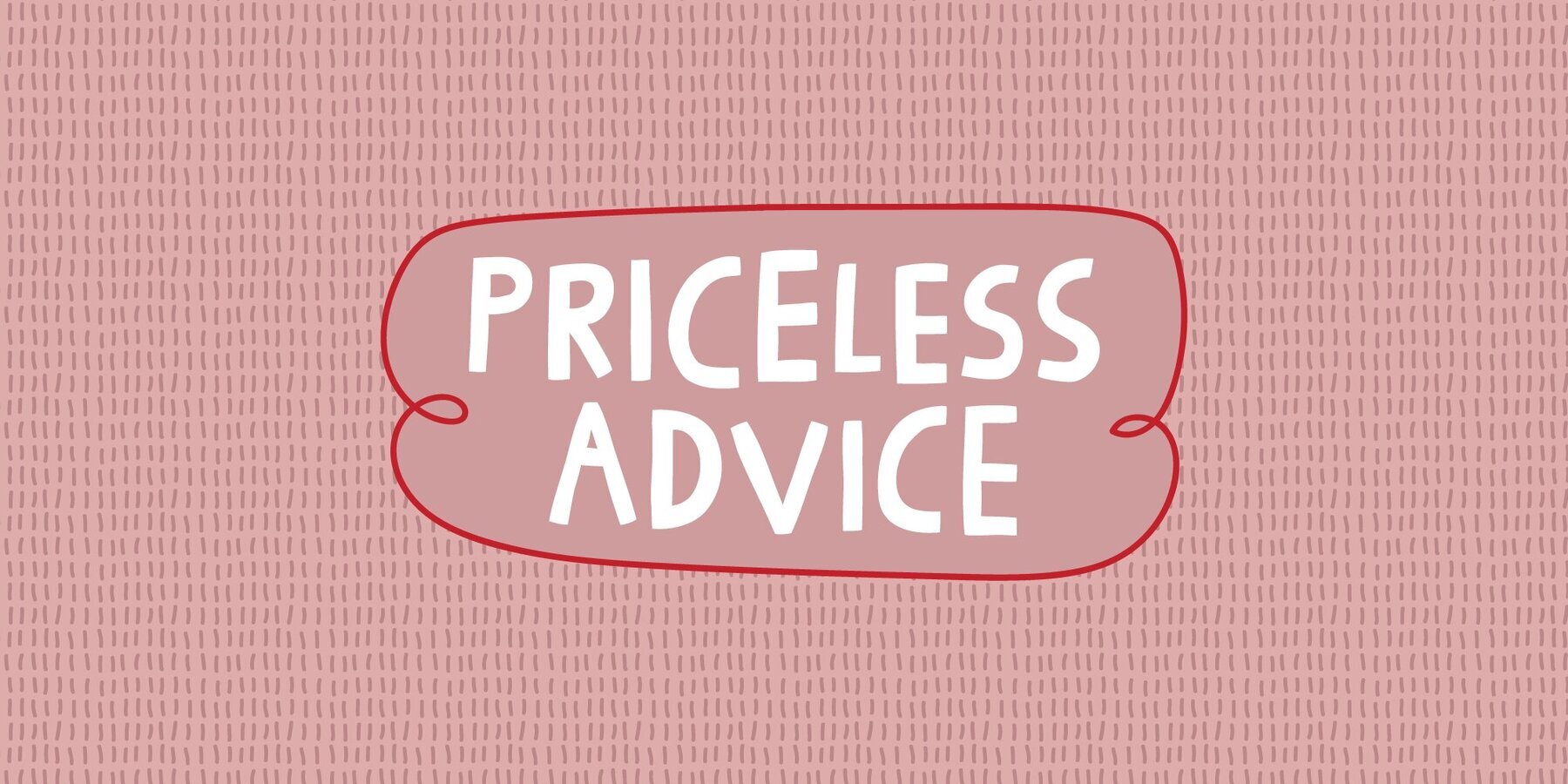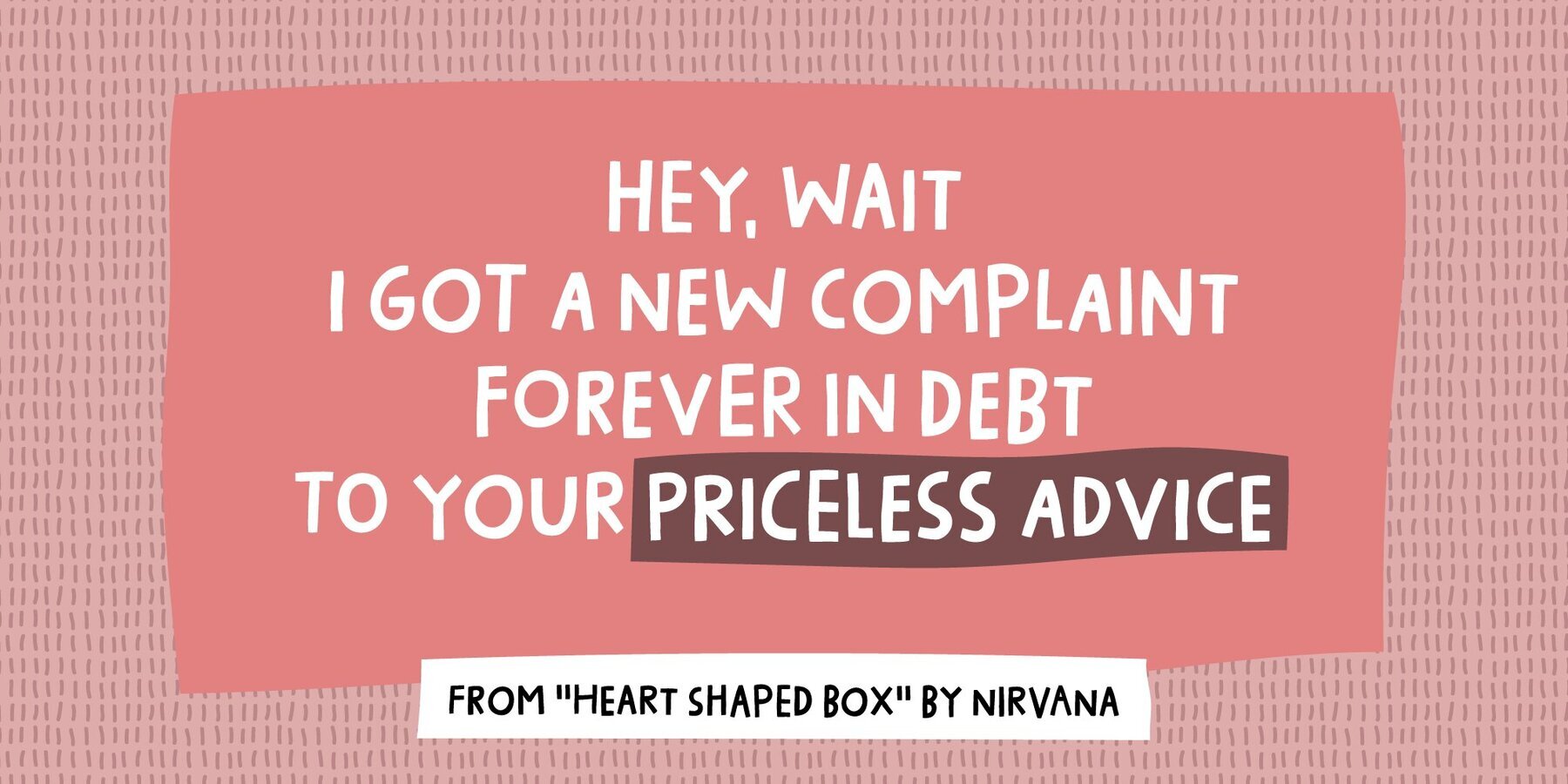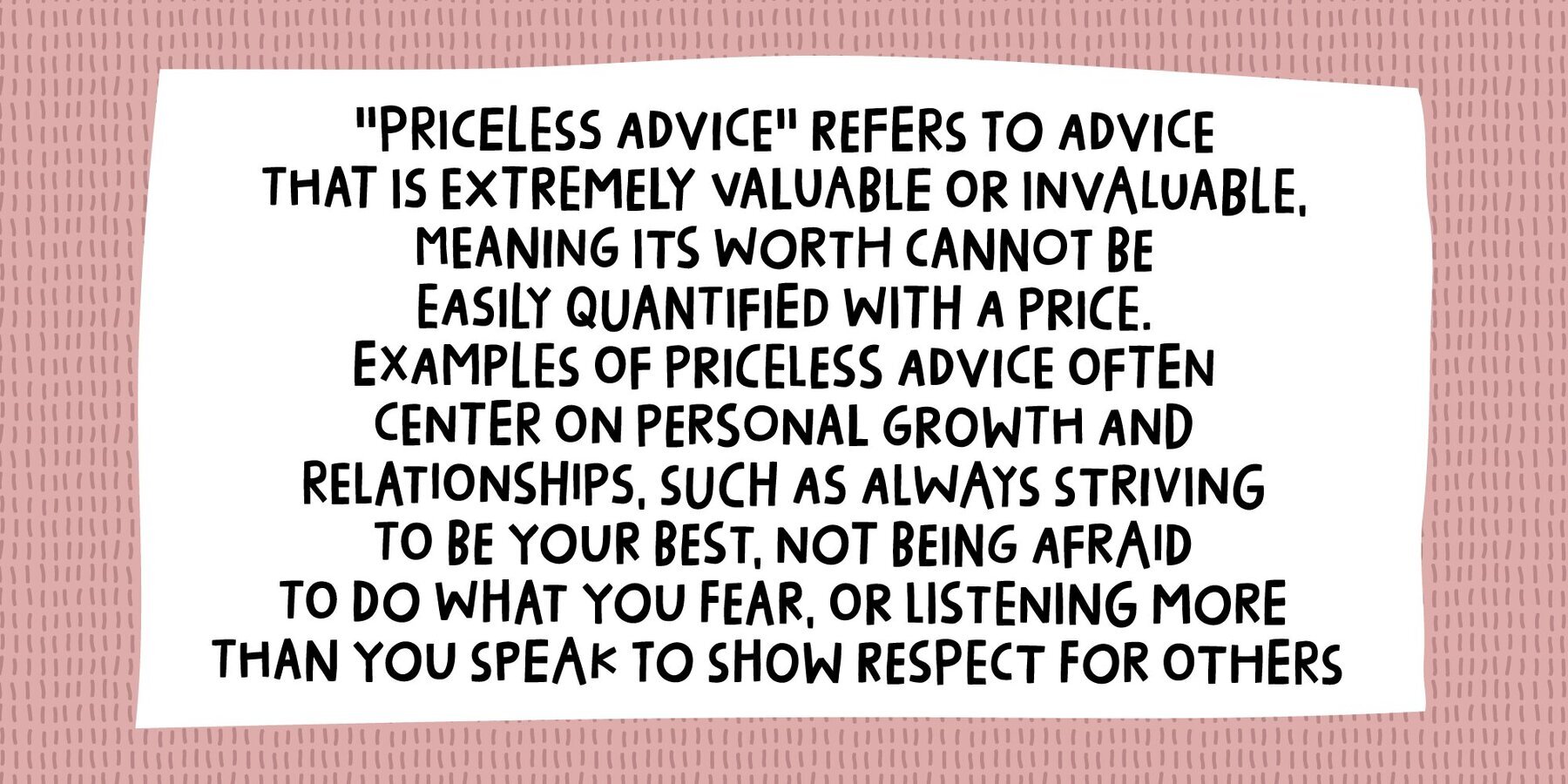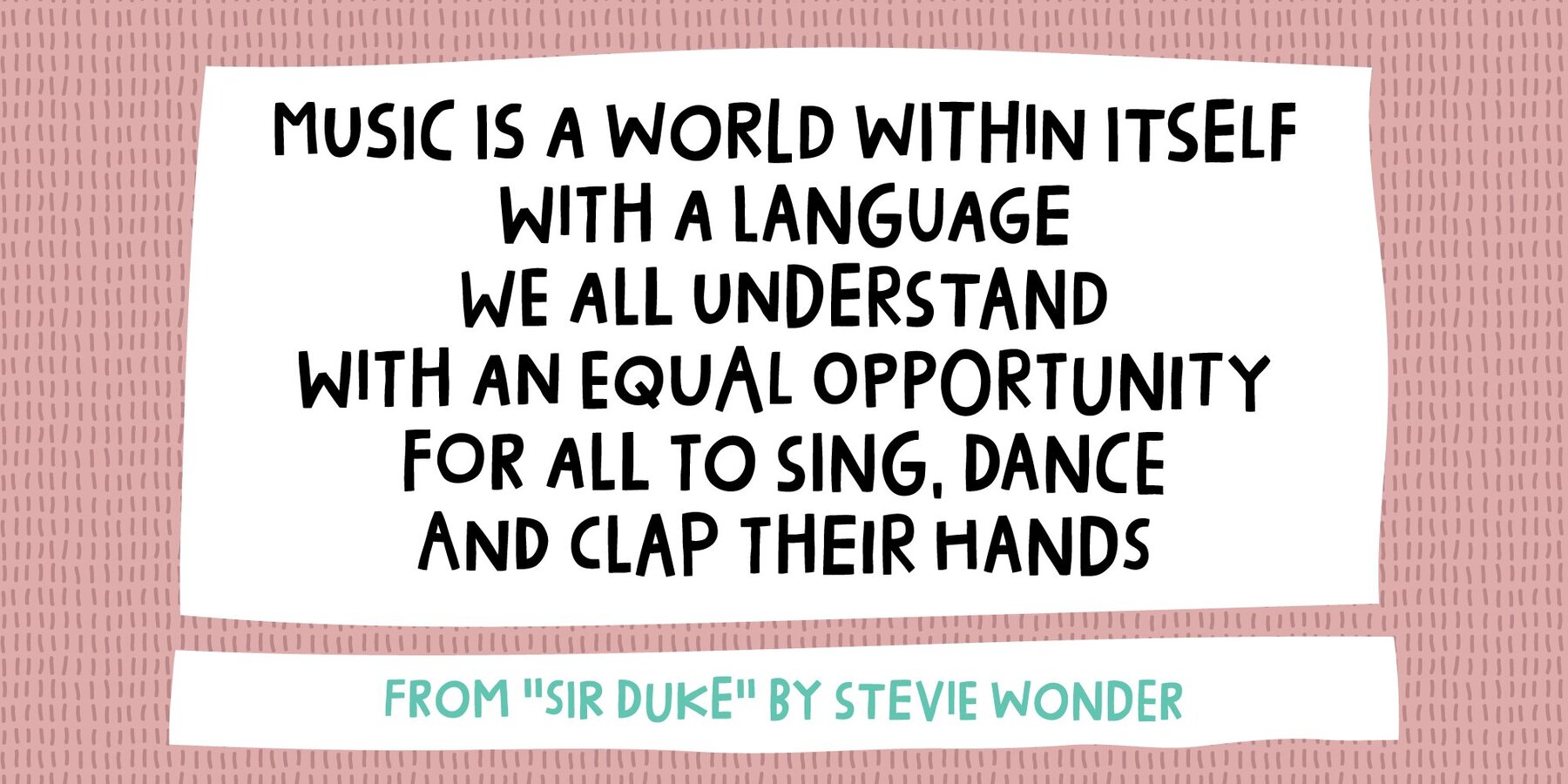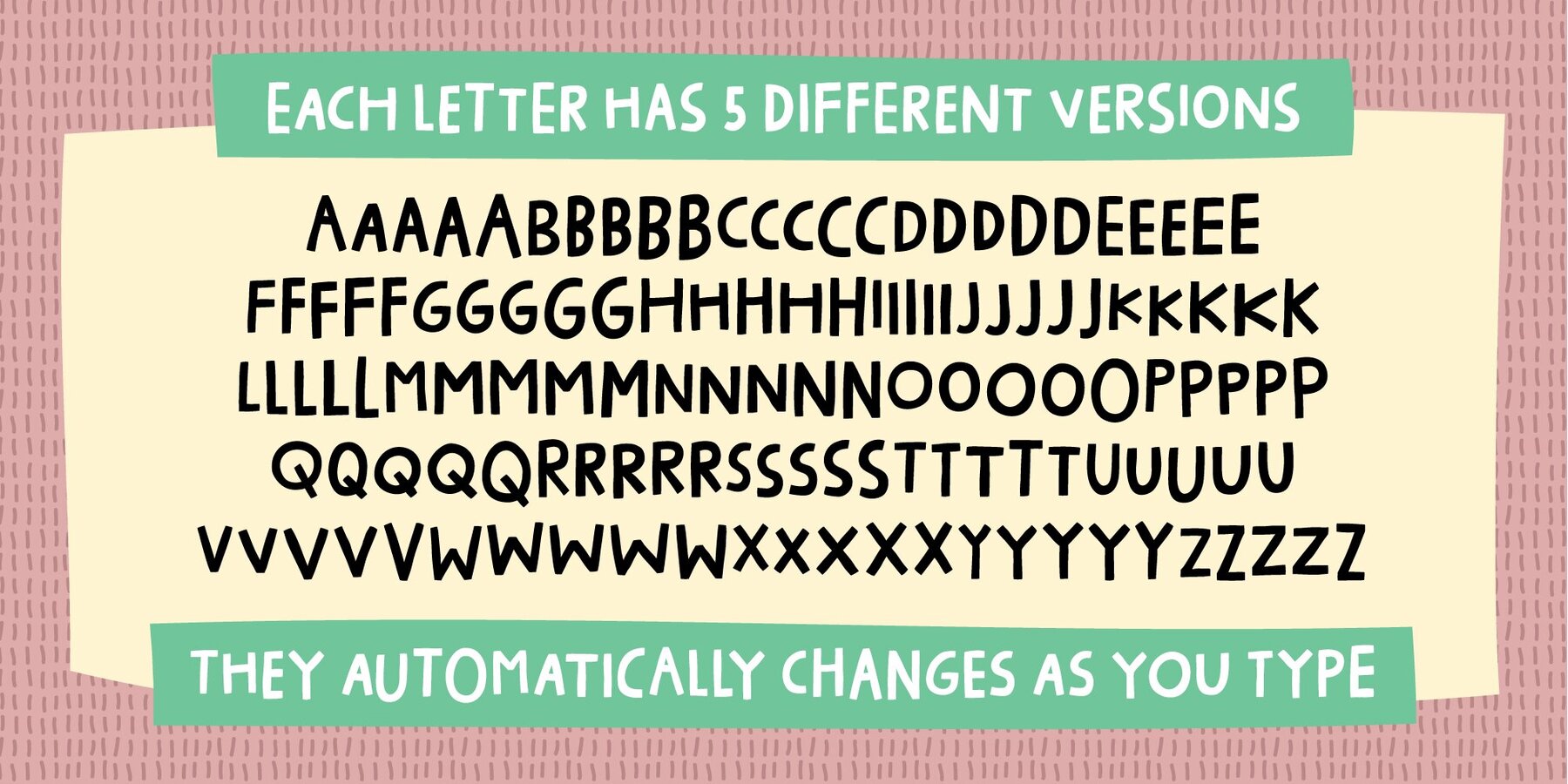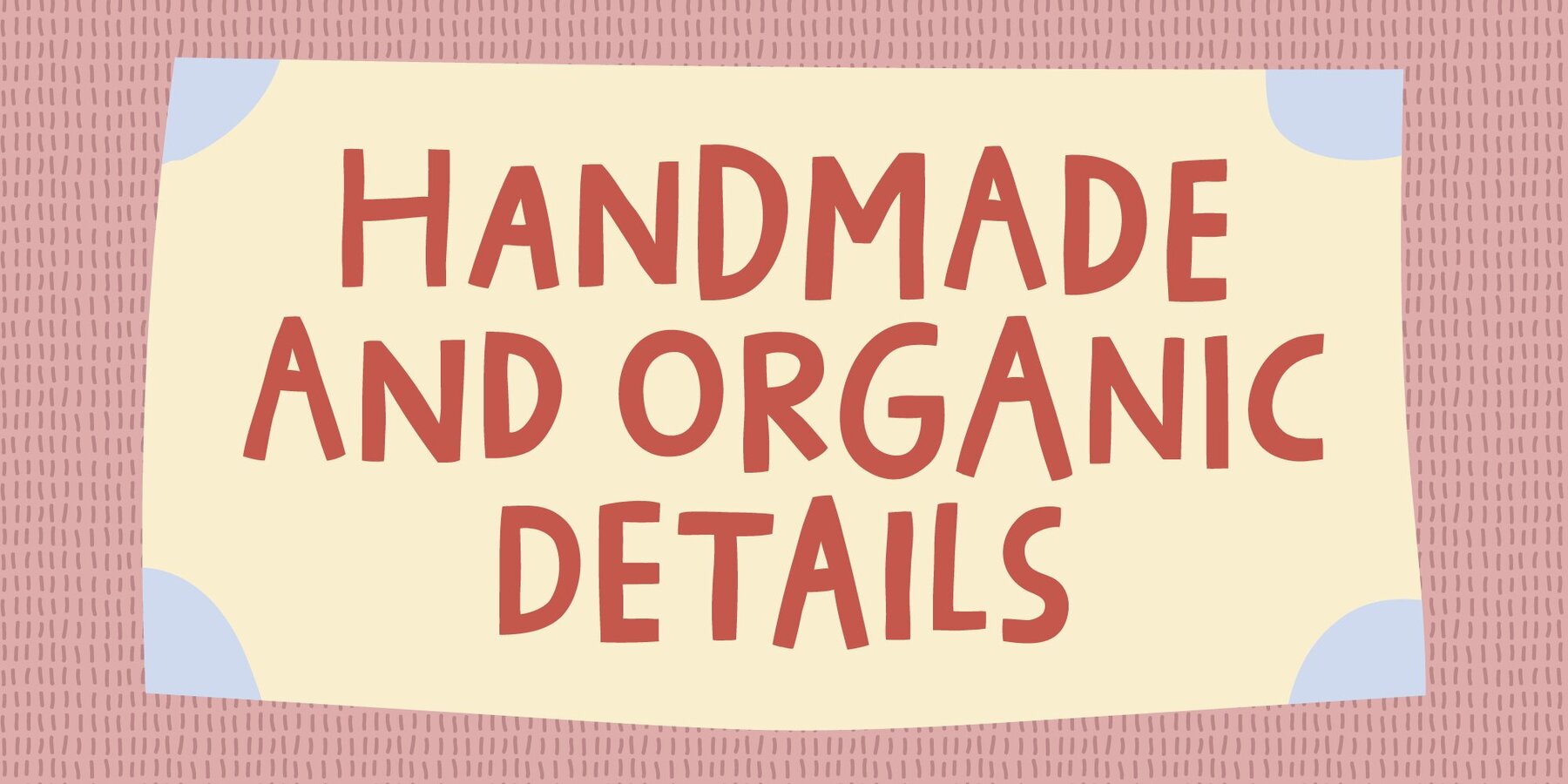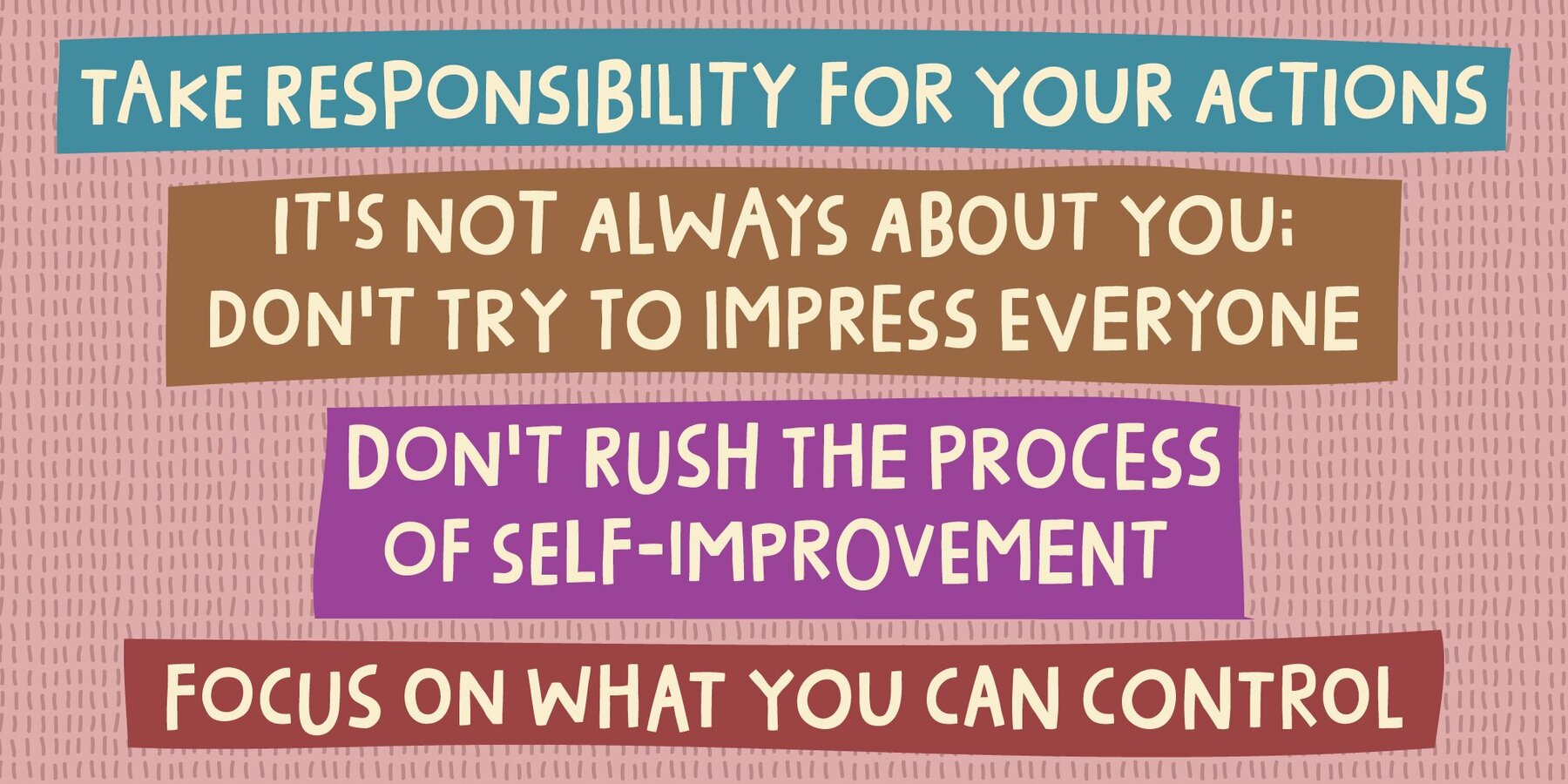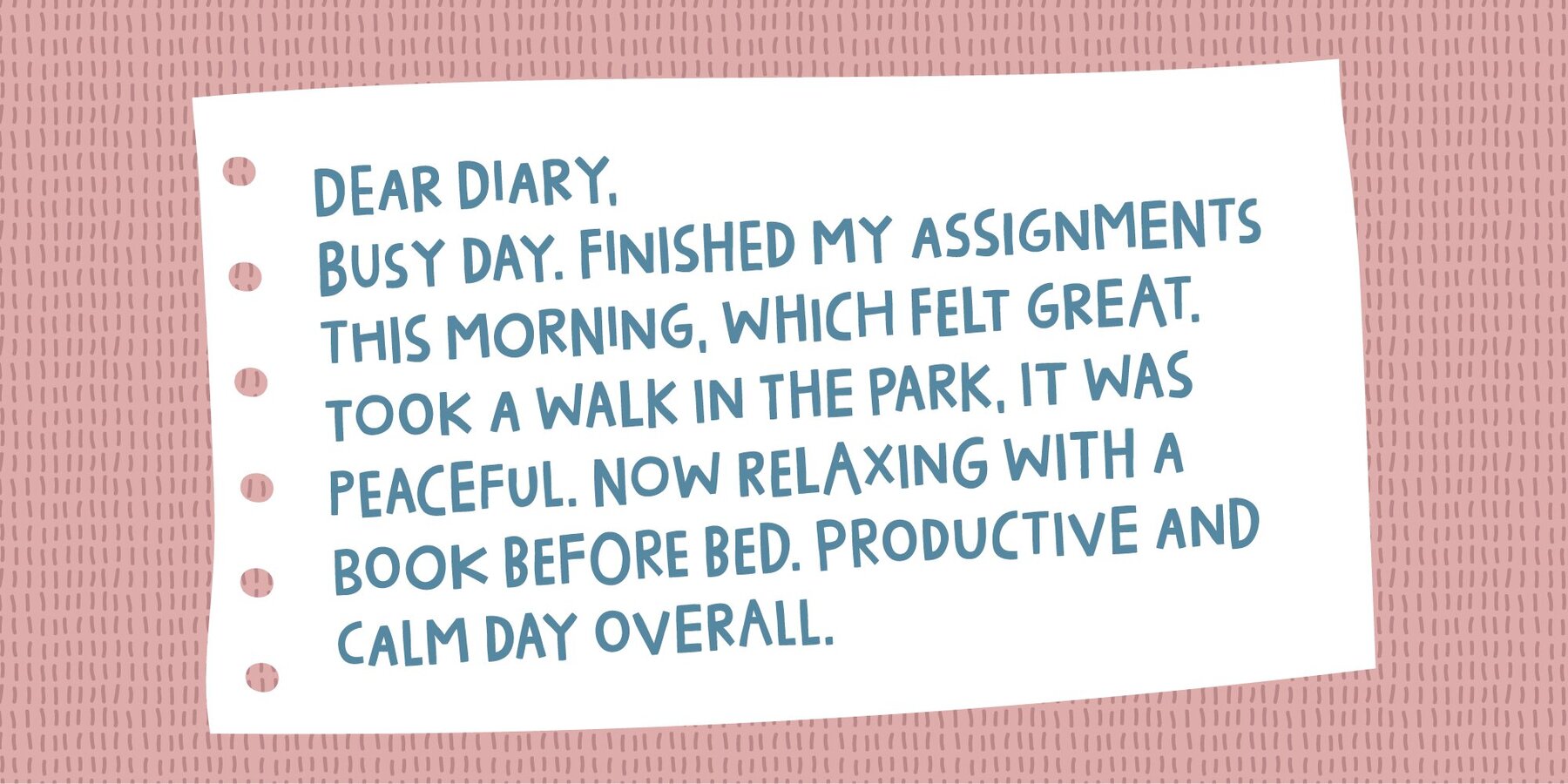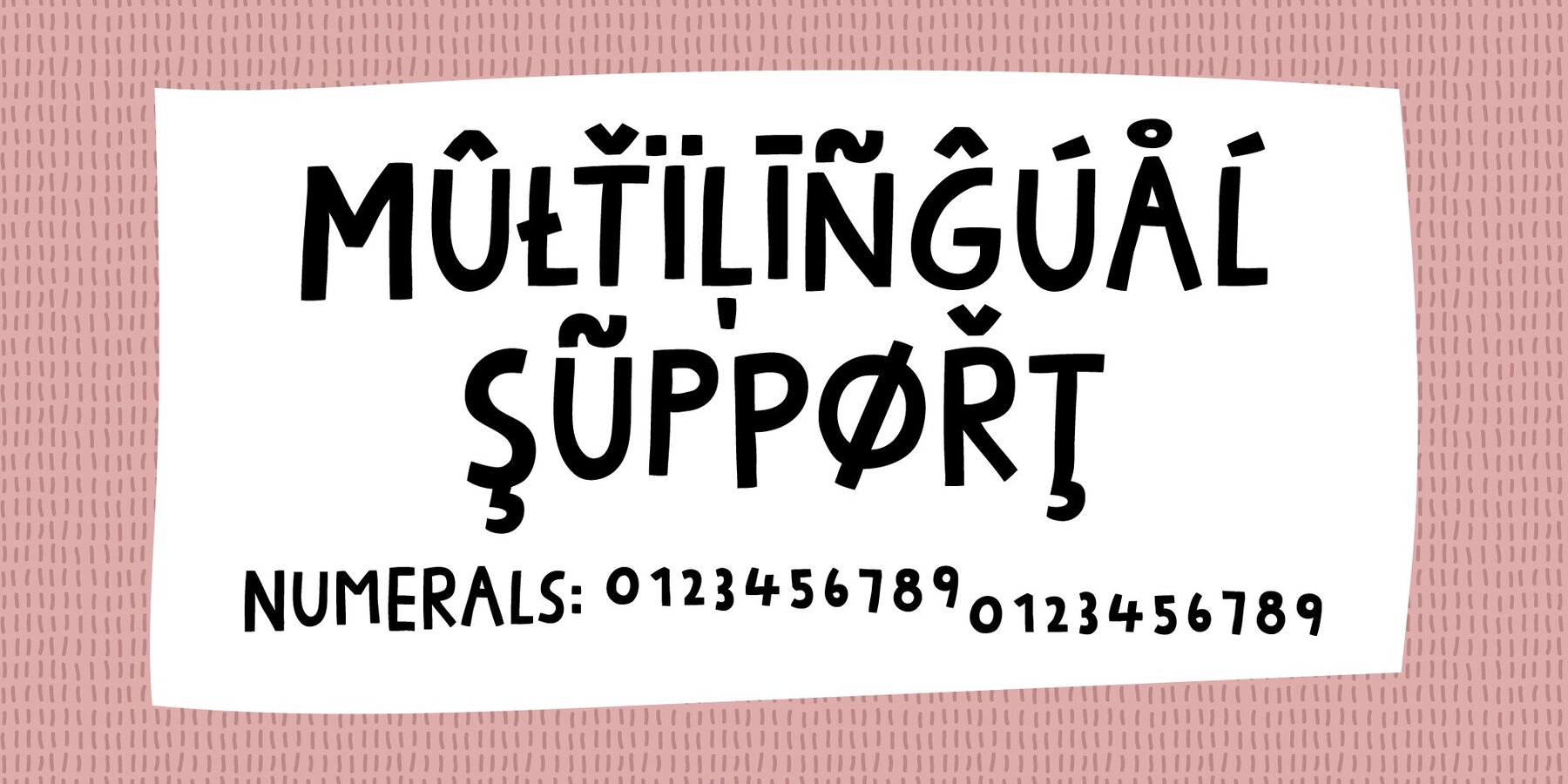
Priceless Advice Font
Priceless Advice Regular
Priceless Advice Italic
A priceless advice is guidance deemed invaluable, often because it's deeply impactful or based on profound wisdom - and it is also two words from the song "Heart shaped box" by Nirvana. The style is handmade, organic and somewhat off grid - meaning a legible, but wacky set of letters. I have added 5 different versions of each letter, and they automatically changes as you type!